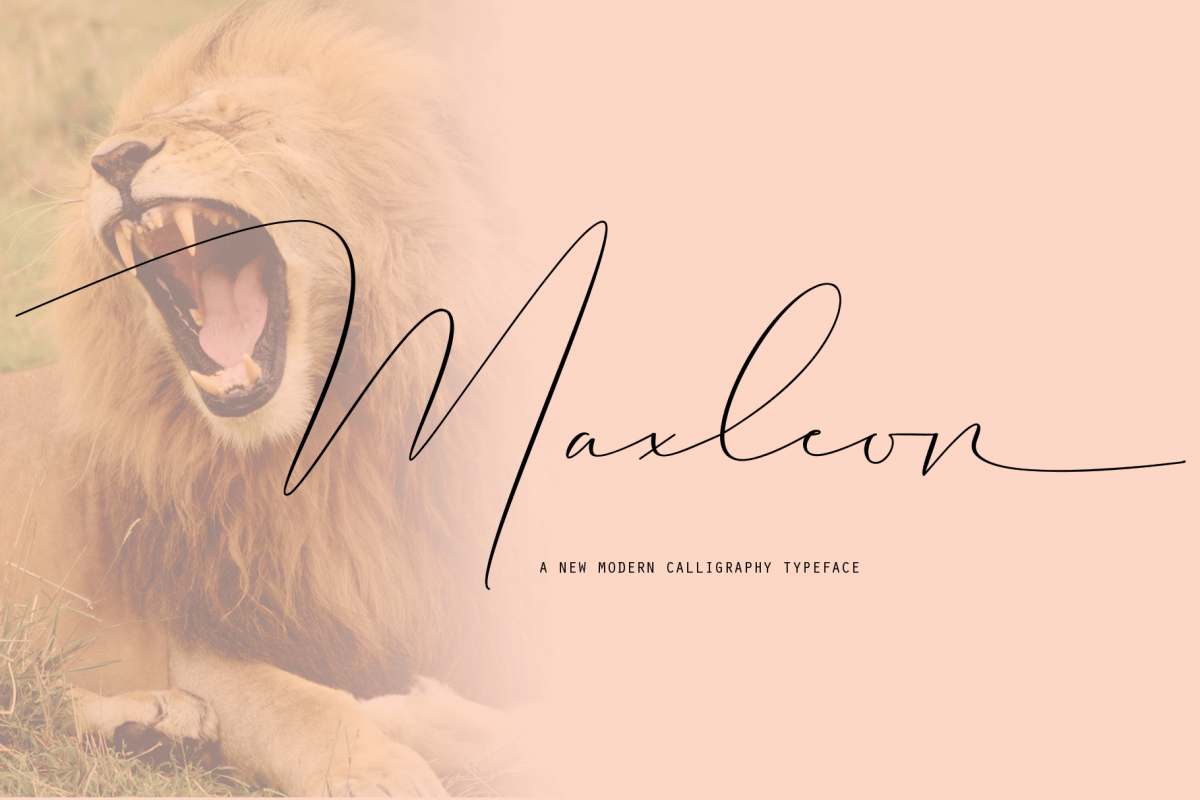
Maxleon
Maxleon a work that is purely a result of handwriting, has a natural characteristic. this is perfect for invitations, signatures, blogs, social media, business cards, product brands.
Maxleon has Stylistic standard, Stylistic Alternate, Stylistic Sets and ligatures. and includes uppercase and lowercase letters, numbers and punctuation marks.